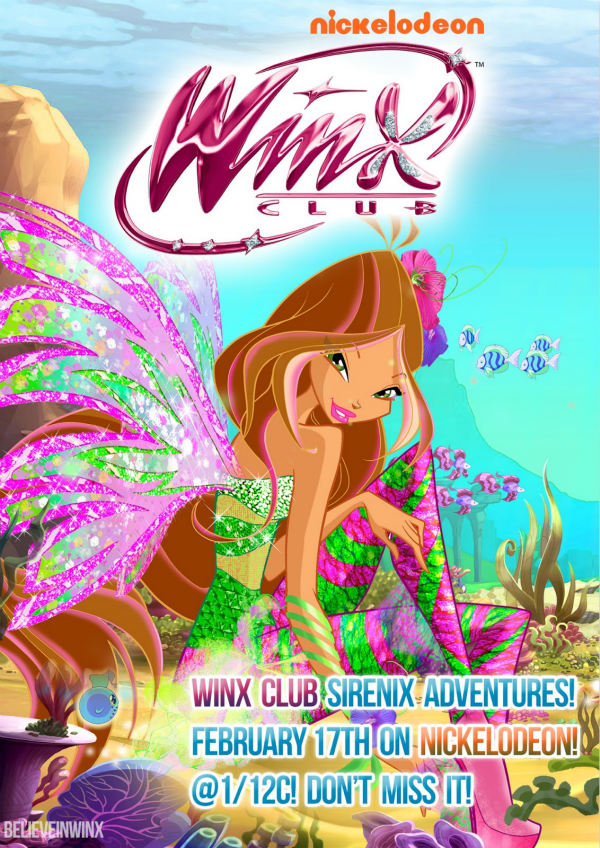
Winx Club [TV Show] Font
AnimationWinx Club is an animated series co-produced by Rainbow SpA and later Nickelodeon. The series portrays a group of teenage fairy friends who attend a magical school and use their powers to fight against evil forces.
The Winx Club logo is probably set in Winx Script created by Kustren. Winx Script is available for free download only for personal purposes. Please take note that the butterfly "X" in the logo is not listed as "X" in the character set you have to use the Asterix sign (*) to create the butterfly "X."